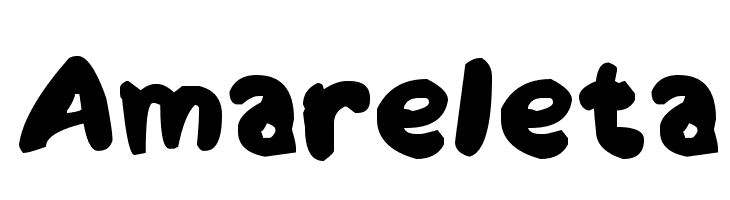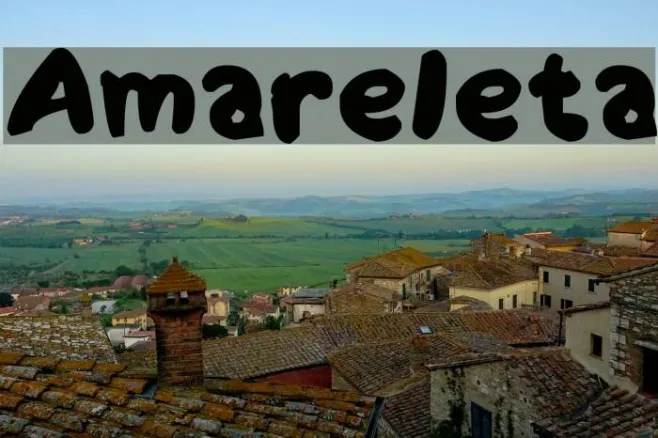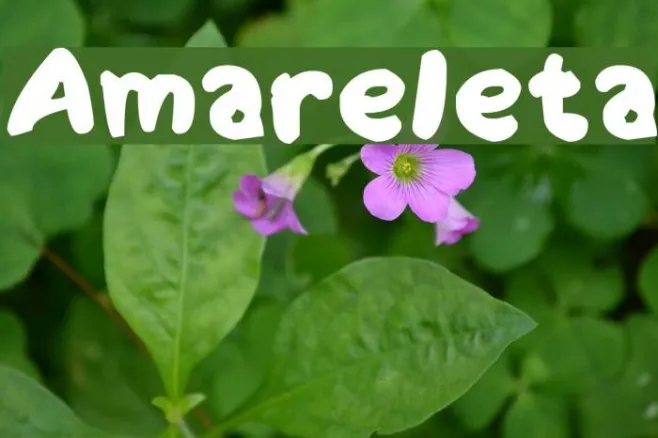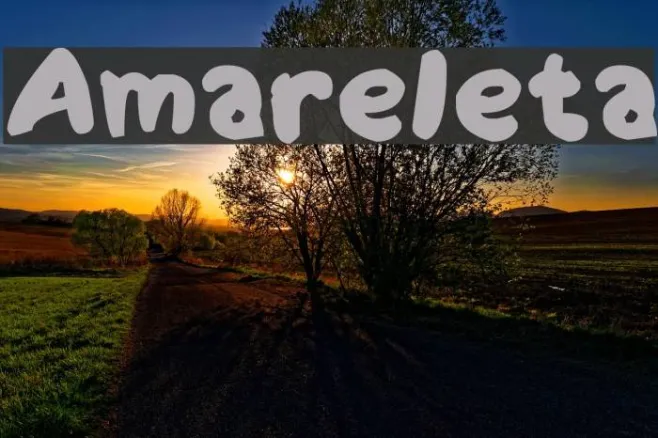
Amareleta Font
Amareleta Description
This font features a bold and playful style with rounded, thick strokes that give it a friendly and approachable appearance. The characters are slightly irregular, adding a hand-drawn feel that enhances its casual and informal vibe. The uppercase and lowercase letters maintain a consistent weight, while the numbers and special characters follow the same playful design. This font is ideal for projects that require a fun and lively touch, such as children's books, posters, or branding for playful products.
| Overall Style | Playful, Casual |
| Proposed Projects | Ideal for children's books, playful posters, and branding for fun products. |